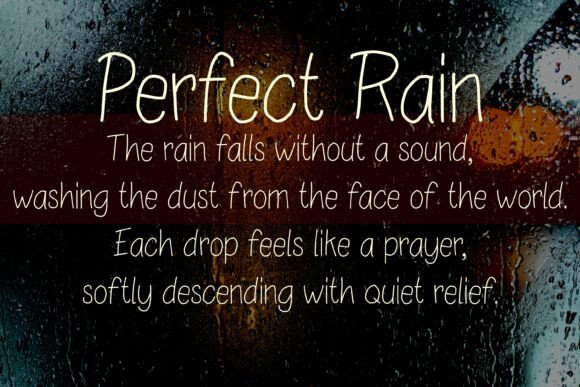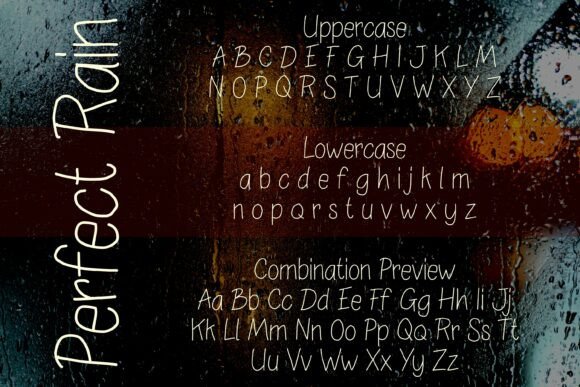
Introduction to Perfect Rain Font
Perfect Rain is an elegant and atmospheric display font inspired by the gentle beauty of falling rain.
With its smooth curves and graceful letterforms, this font brings a soft, romantic, and calming touch to any design Perfect for quotes, invitations, branding, posters, book covers, and aesthetic creative projects.
Key Features of Perfect Rain Font
Why Choose Perfect Rain Font?
Perfect Rain Font offers exceptional quality and versatility, making it a valuable addition to your design toolkit. Whether you’re creating for personal projects or commercial use, Perfect Rain Font delivers professional results.